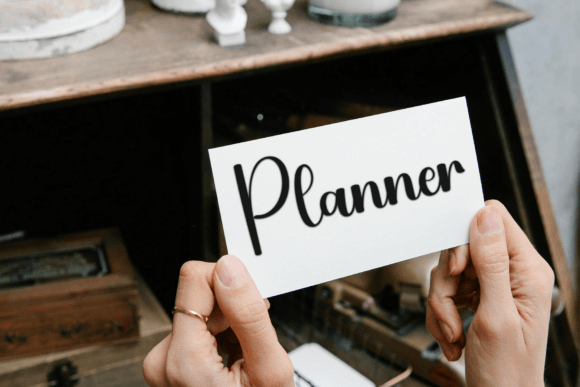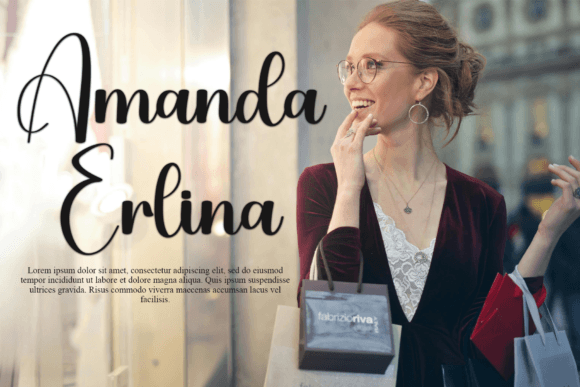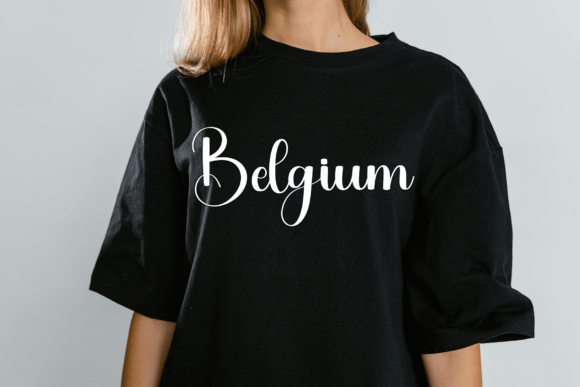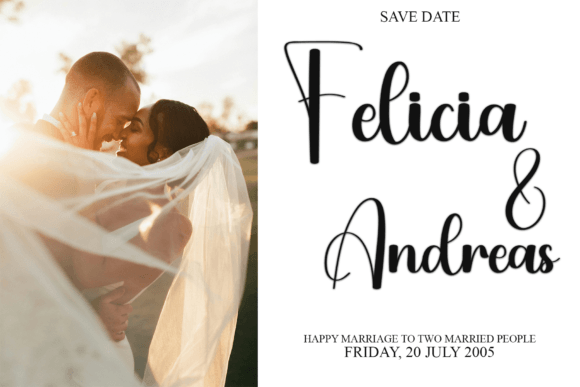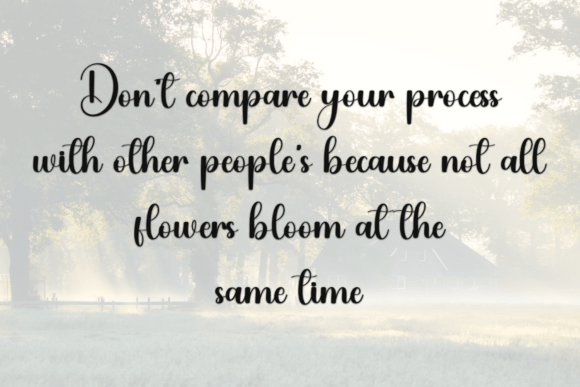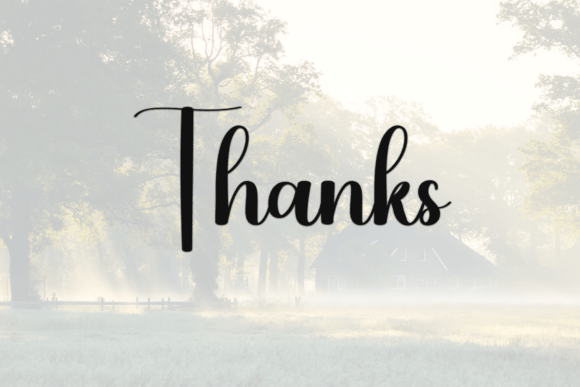
Introducing Delight Font: The Timeless Handwritten Choice for Designers and Crafters
Are you on the hunt for a font that adds a personal touch to your designs? Look no further than Delight Font, a lovely and timeless handwritten font that’s perfect for creating eye-catching logos, branding, and quotes. With its unique and beautiful touch, Delight Font is sure to make your design come alive!
The Characteristics of Delight Font
Delight Font is a carefully crafted handwritten font that boasts a range of characteristics that set it apart from other fonts. Here are just a few of the features that make Delight Font so special:
- Unique Letterforms: Every letter in Delight Font has a unique and beautiful touch, making it perfect for designs that require a personal and human feel.
- Timeless Appeal: Delight Font has a timeless quality that ensures it will never go out of style. Whether you’re creating a logo, branding materials, or quotes, Delight Font is a versatile choice that will stand the test of time.
- Handwritten Charm: Delight Font has a charming, handwritten feel that’s perfect for designs that require a personal touch. From wedding invitations to branding materials, Delight Font adds a touch of warmth and personality to any design.
Uses for Delight Font
Delight Font is a versatile font that can be used in a wide range of design applications. Here are just a few ideas to get you started:
- Logo Design: Delight Font is perfect for creating eye-catching logos that require a personal touch. Whether you’re designing a logo for a new business or rebranding an existing company, Delight Font is a great choice.
- Branding: Delight Font is also great for branding materials, such as business cards, letterheads, and packaging. Its unique and beautiful touch adds a touch of personality to any brand.
- Quotes and Posters: Delight Font is a great choice for quotes and posters that require a personal and human feel. Whether you’re creating a motivational poster or a quote for social media, Delight Font is a versatile choice that will make your design stand out.
Why Choose Delight Font?
So why choose Delight Font over other fonts? Here are just a few reasons why Delight Font is a great choice for designers and crafters:
- Easy to Read: Delight Font is easy to read, even at small sizes. This makes it perfect for designs that require a lot of text, such as blog posts or articles.
- Highly Versatile: Delight Font is a highly versatile font that can be used in a wide range of design applications. Whether you’re creating a logo, branding materials, or quotes, Delight Font is a great choice.
- Unique and Beautiful: Delight Font has a unique and beautiful touch that adds a touch of personality to any design. Whether you’re designing for a client or creating a personal project, Delight Font is a great choice.
Tips for Using Delight Font
Here are a few tips for using Delight Font in your designs:
- Pair with Other Fonts: Delight Font pairs well with other fonts, such as sans-serif fonts or script fonts. Experiment with different font combinations to find the perfect look for your design.
- Use for Headings and Titles: Delight Font is perfect for headings and titles, where its unique and beautiful touch can really shine.
- Experiment with Colors: Delight Font looks great in a range of colors, from bright and bold to pastel and subtle. Experiment with different colors to find the perfect look for your design.
In conclusion, Delight Font is a lovely and timeless handwritten font that’s perfect for designers and crafters. With its unique and beautiful touch, Delight Font adds a touch of personality to any design. Whether you’re creating a logo, branding materials, or quotes, Delight Font is a versatile choice that will make your design come alive!